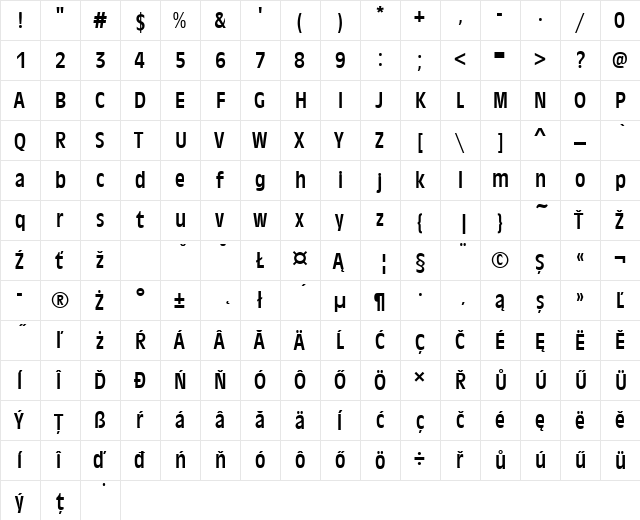
AntiqueOliTEECon Regular
Design Context for AntiqueOliTEECon Typeface
AntiqueOliTEECon has the warm character of retro typography — evoking diners, record sleeves, and the golden age of print advertising.
Font Pairing: Combine AntiqueOliTEECon with a simple slab or neutral sans — period-accurate companions reinforce the vintage feel without competing for attention.
Pro Tip: Lean into AntiqueOliTEECon's period character by pairing it with aged paper textures, muted colour palettes, and vintage illustration styles.